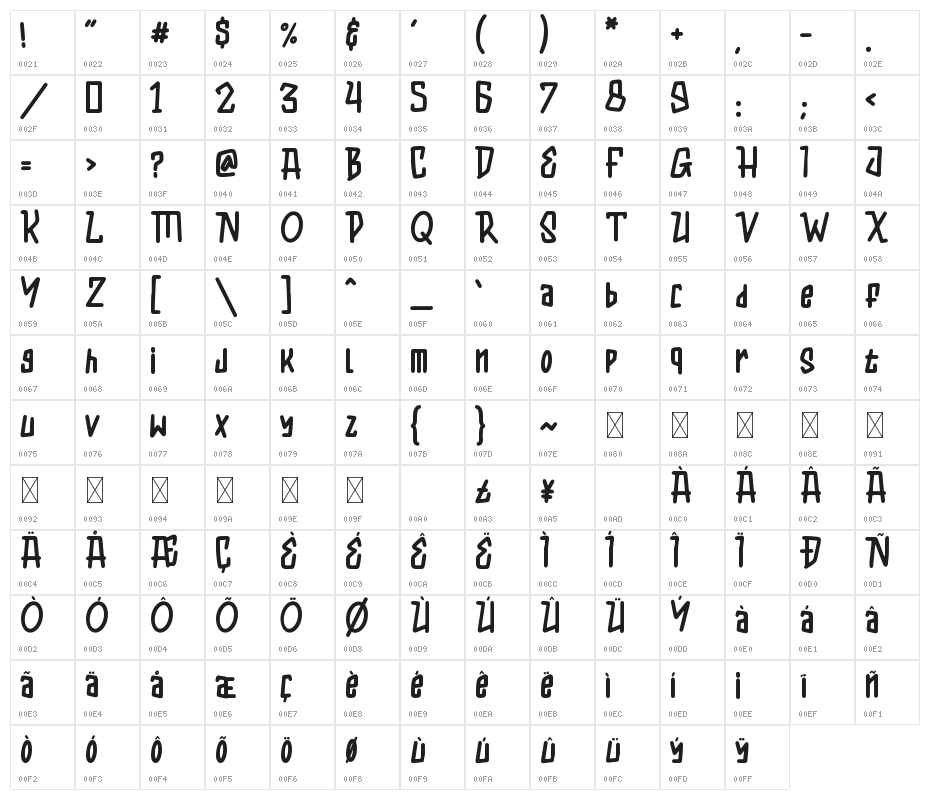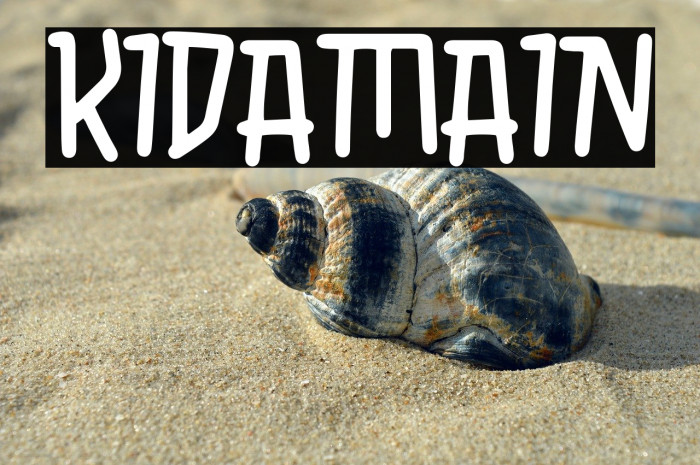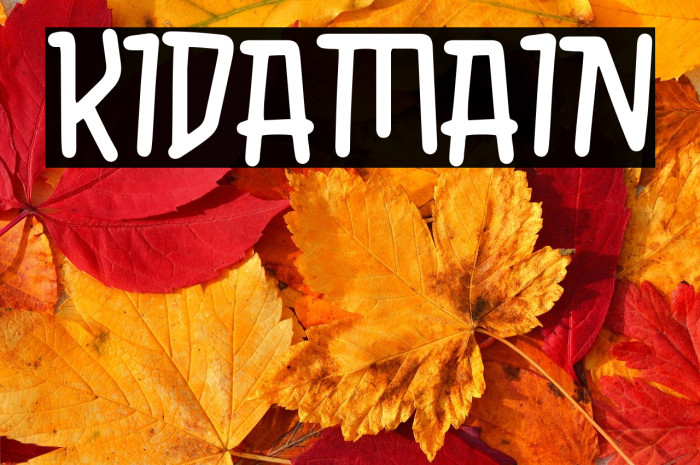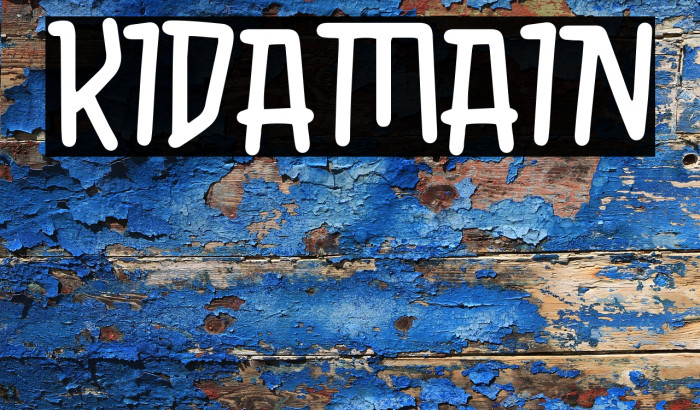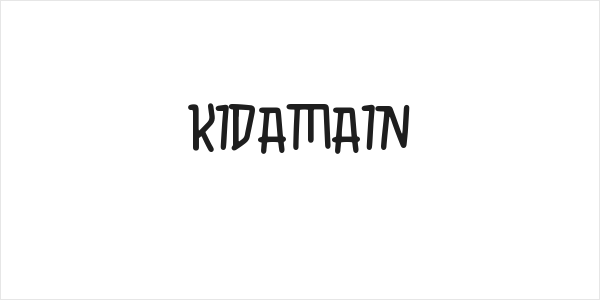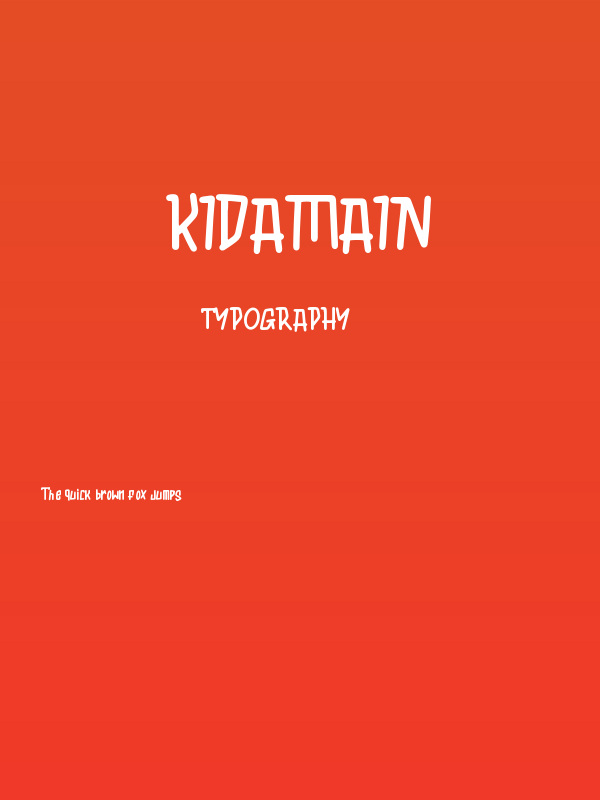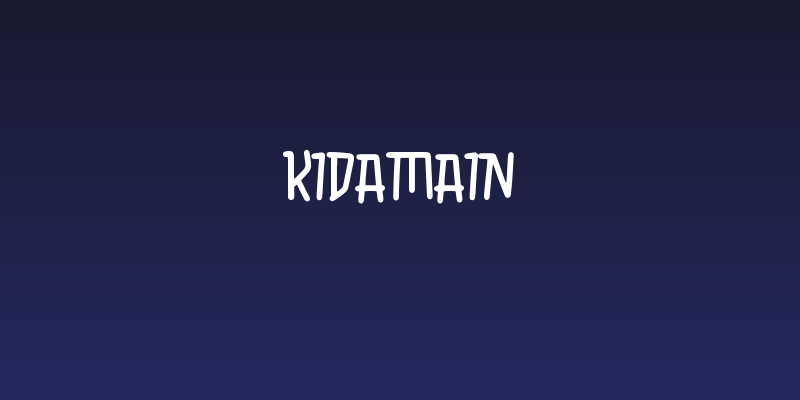
KIDAMAIN Font
KIDAMAIN Description
This font features a playful and bold design with a hand-drawn aesthetic. The letters are characterized by thick strokes and rounded edges, giving them a friendly and approachable appearance. The uppercase and lowercase letters maintain a consistent style, with slight variations that add to the casual feel. Numbers and special characters are designed to match the overall theme, ensuring a cohesive look across all text elements. The font's unique style makes it stand out, making it suitable for creative projects that require a touch of whimsy.
| Overall Style | Playful, Hand-drawn |
| Proposed Projects | Ideal for children's books, comic strips, playful branding, and creative posters. |